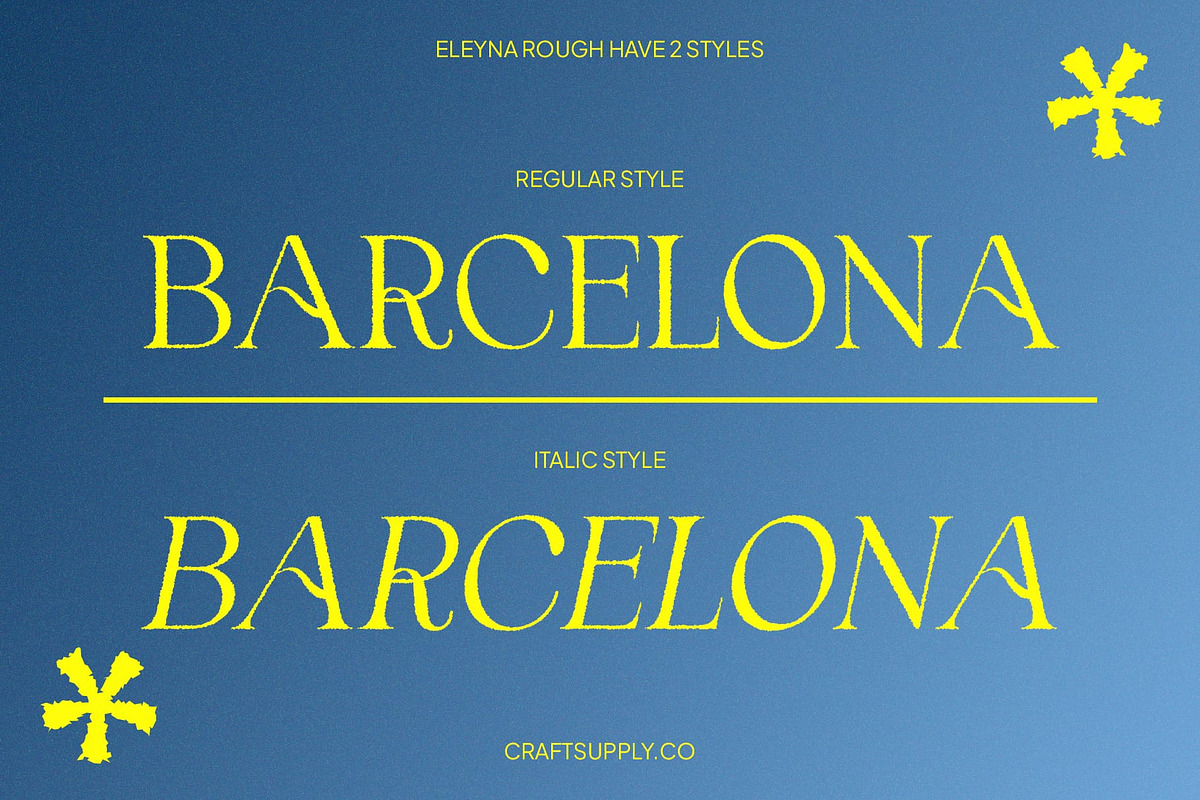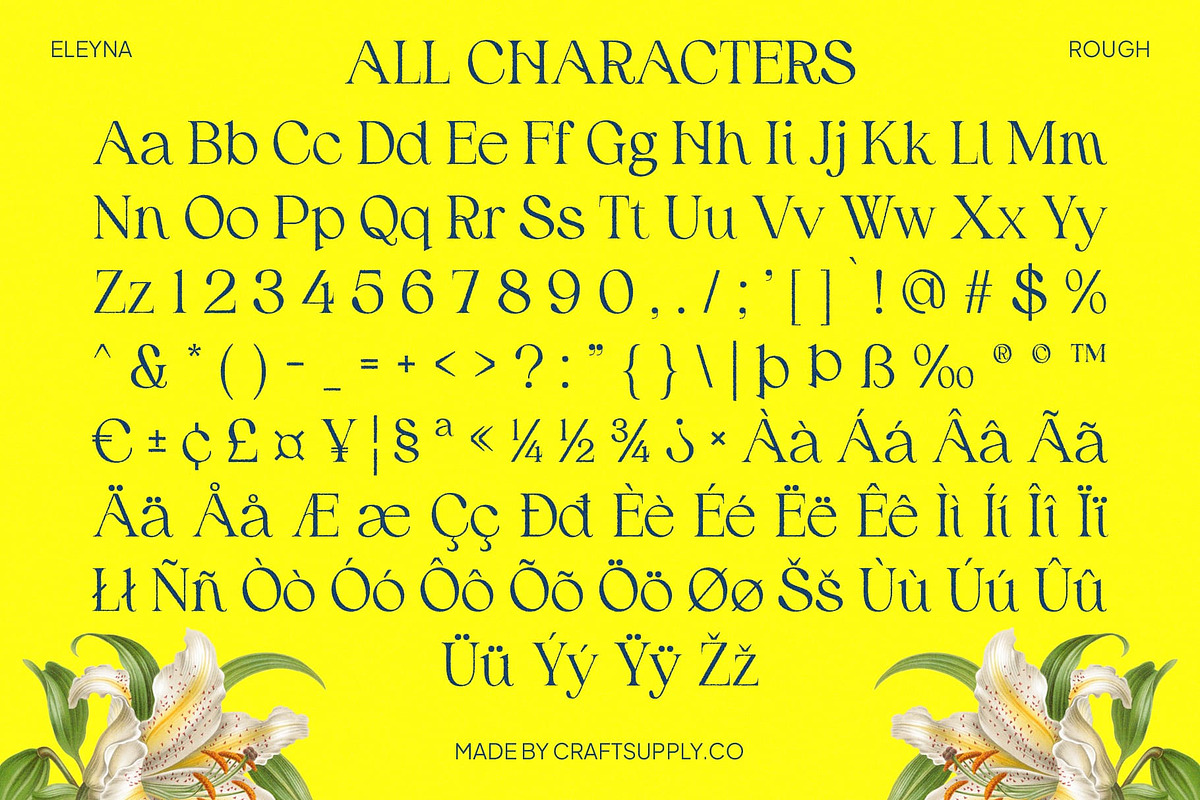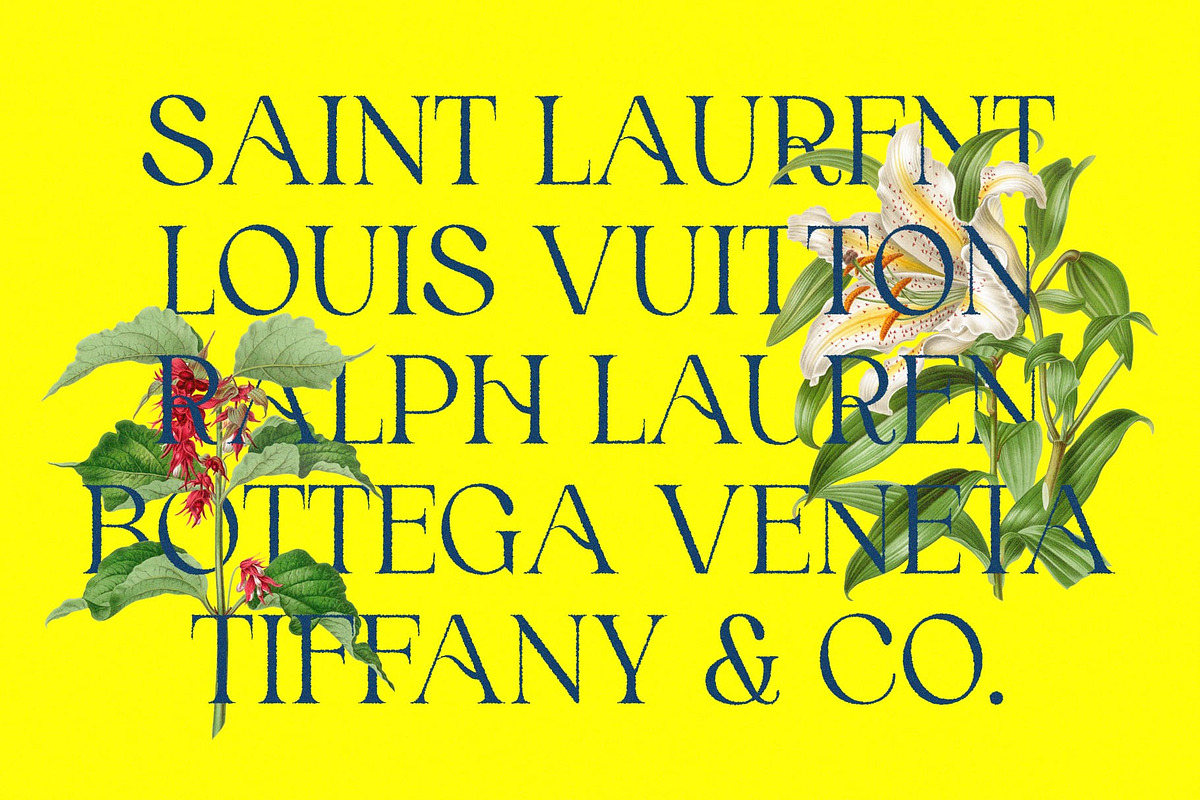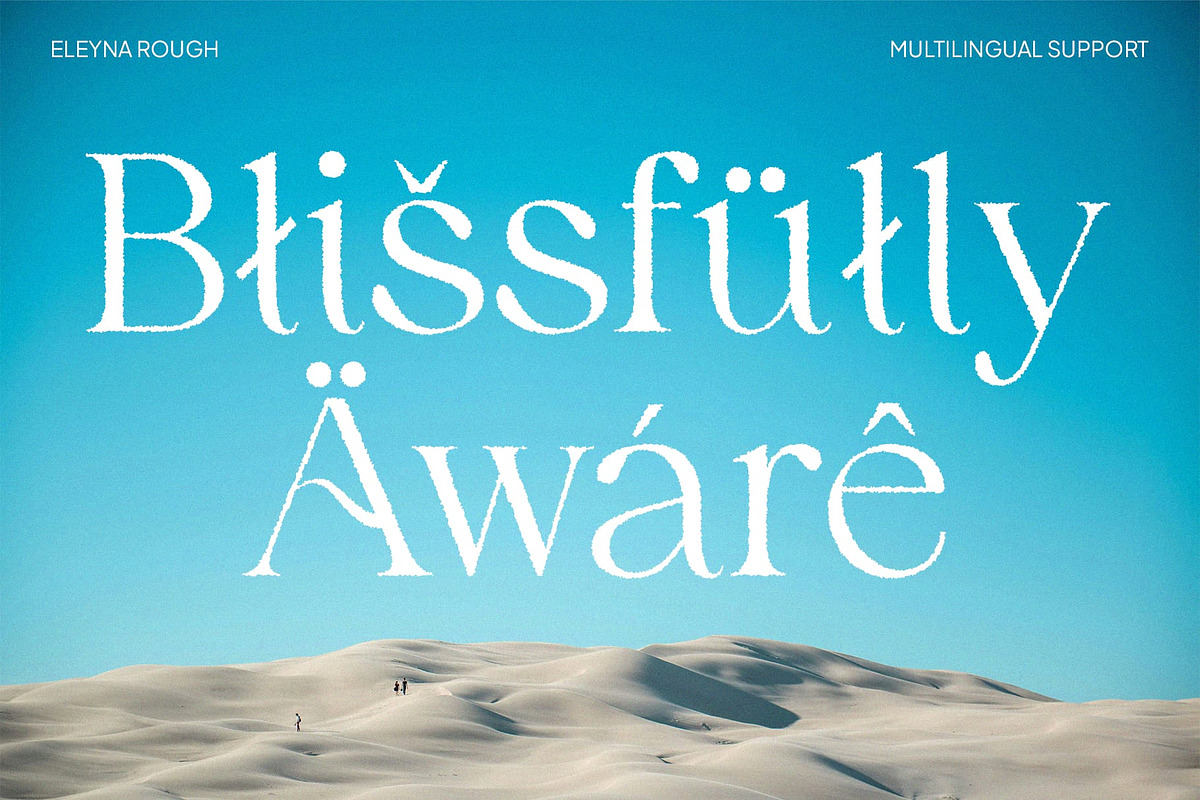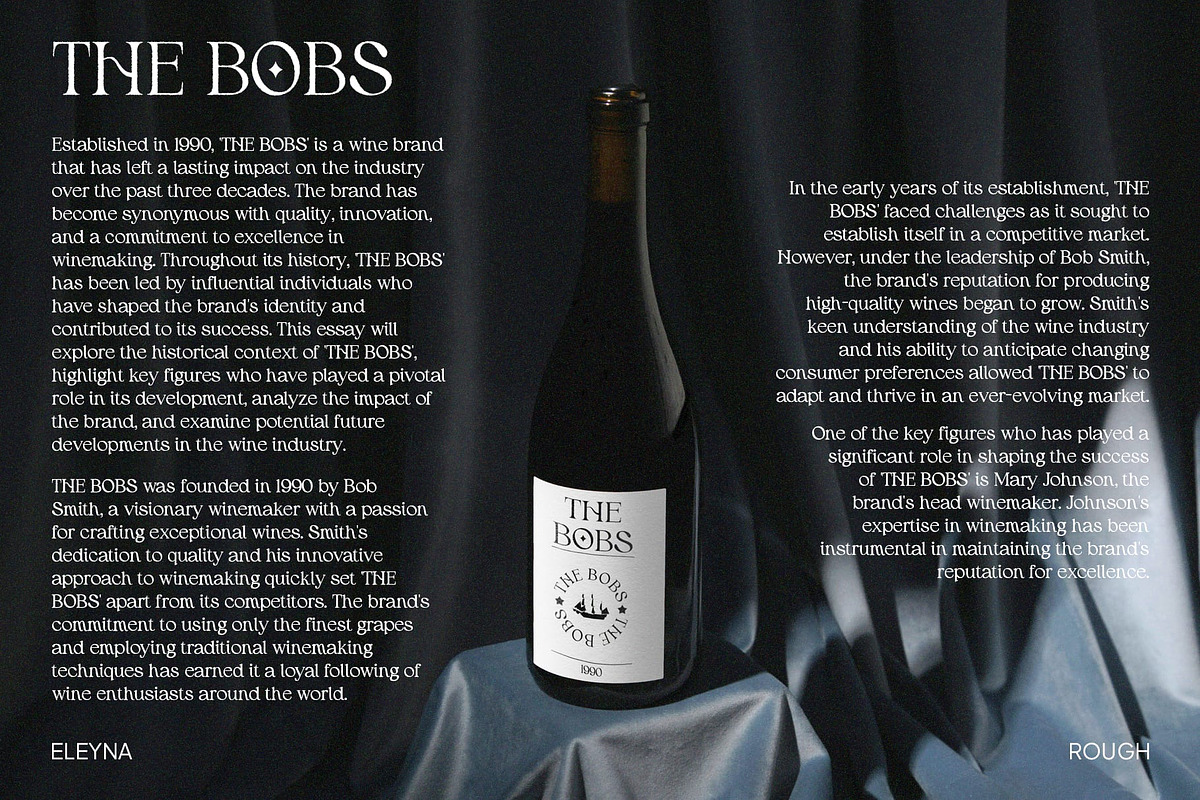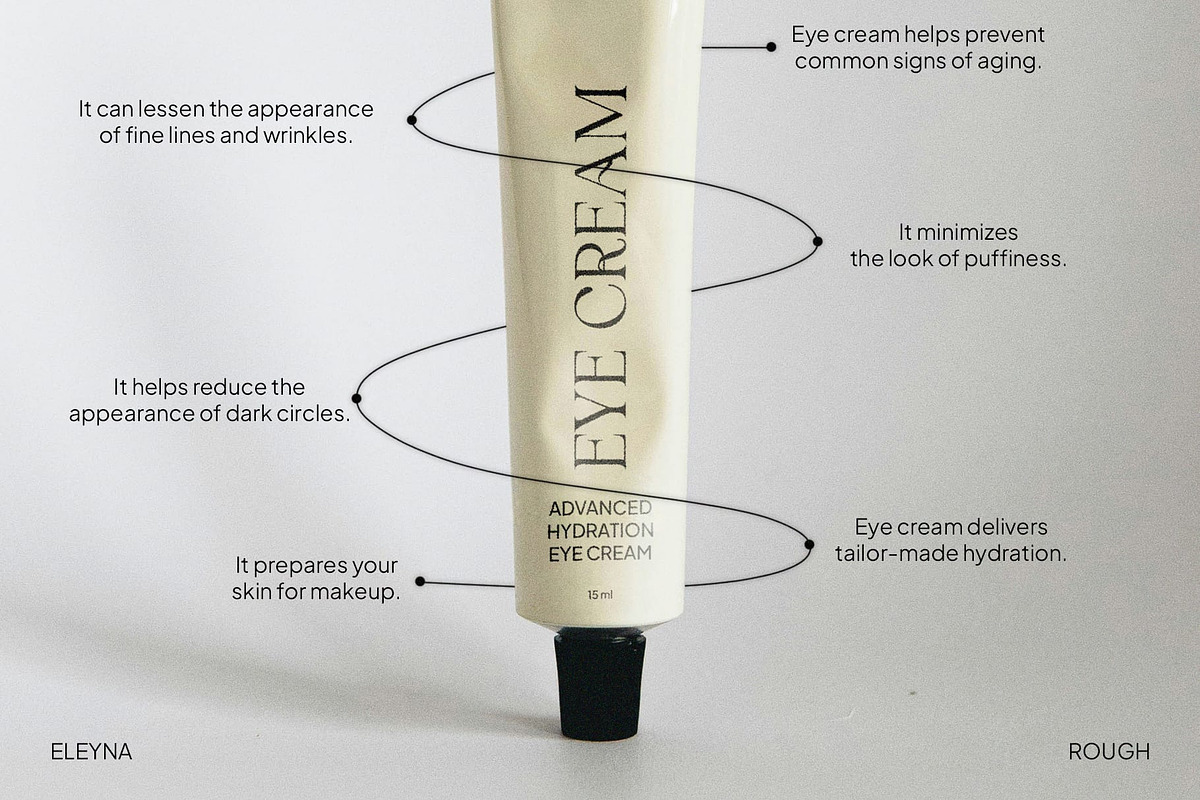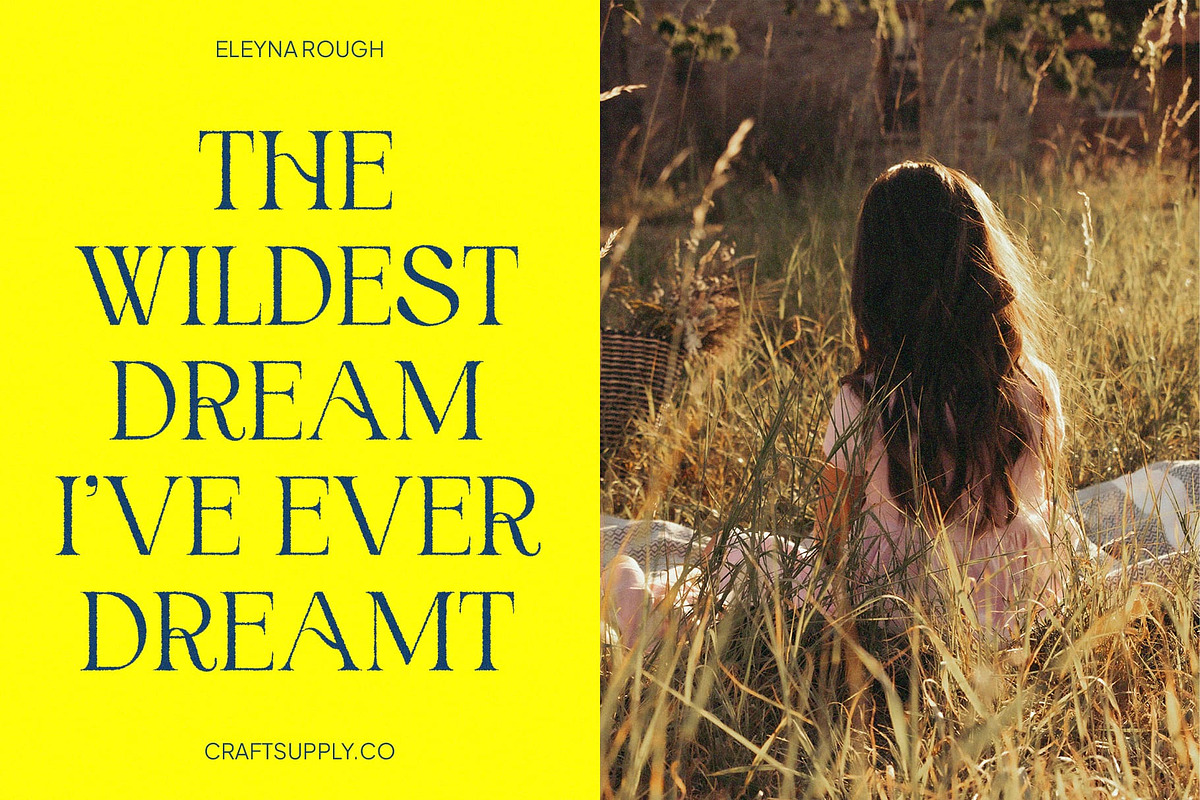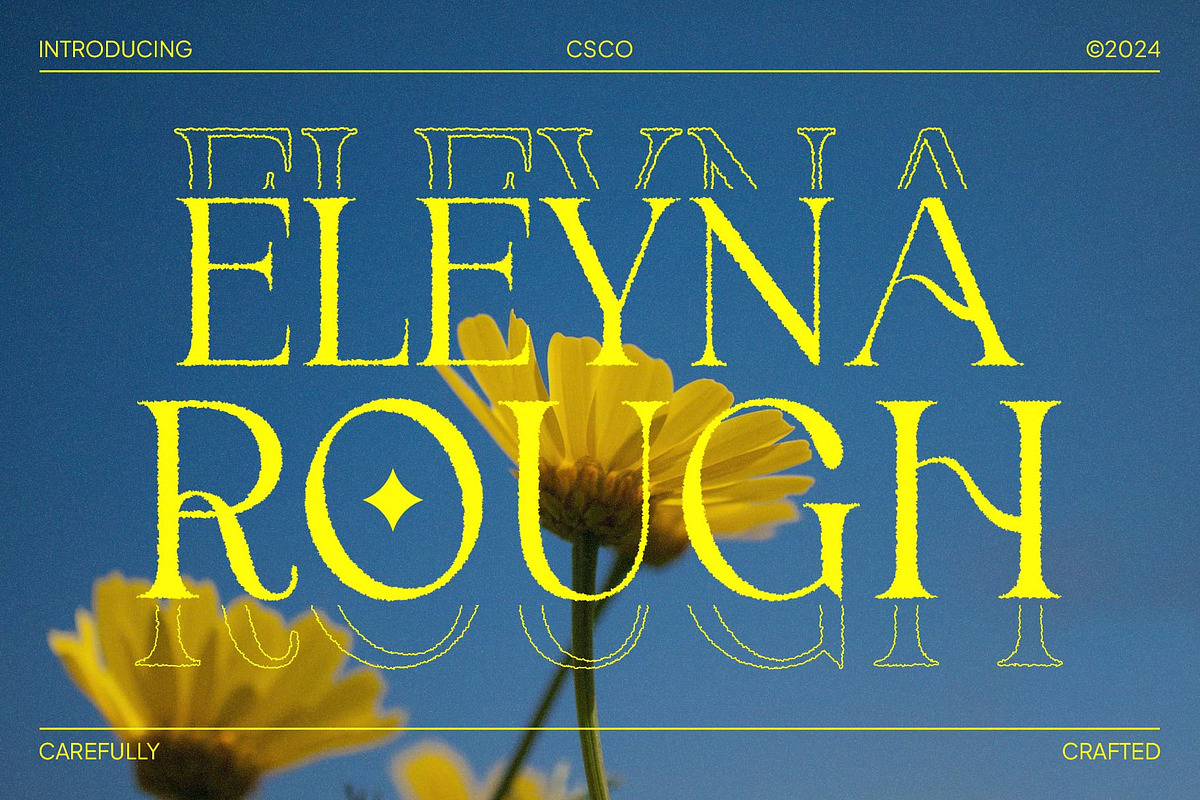
Eleyna Rough
Eleyna Rough: Modern Serif Font with Elegant Roughness
Smooth Lines with Textured Finish
Eleyna Rough is a modern serif font that seamlessly blends smooth lines with a textured finish, creating an elegant and beautiful aesthetic. This design combines sophistication with an intriguing roughness, offering a unique typographic solution for projects that seek a distinctive rugged touch.
Distinctive Classy Appearance
Perfect for projects aiming for a unique and classy appearance, Eleyna Rough adds a touch of sophistication while maintaining its rugged charm. Whether used in editorial layouts, branding materials, or elegant invitations, this font exudes versatility and character.
Versatile Application
Eleyna Rough is versatile, suitable for a wide range of design applications where elegance and ruggedness need to coexist seamlessly. Its balanced combination of smoothness and texture makes it ideal for creating impactful headlines, stylish logos, and memorable branding materials.